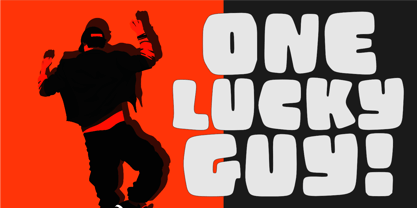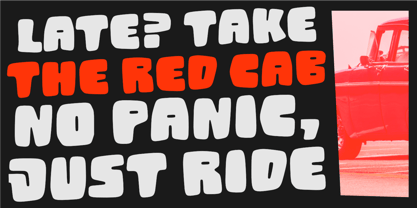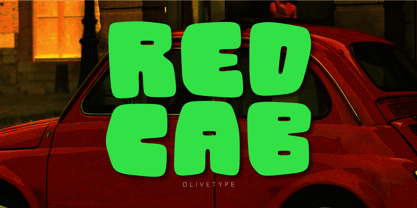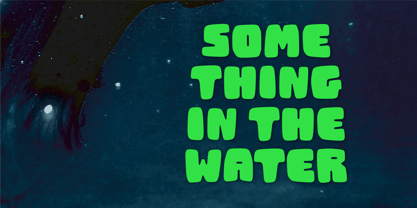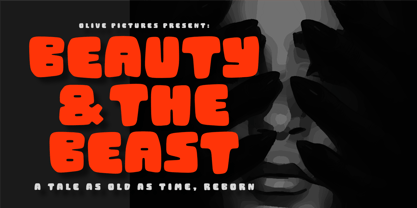
Red Cab
por Olivetype
La familia tipográfica Red Cab fue diseñada por Nurul Hidayani y publicada por Olivetype. Red Cab contiene 1 estilos. Más información sobre esta familia
Red Cab is a super bold display font built to grab attention instantly and deliver fun, confidence, and impact. Inspired by playful urban energy and cartoon-style lettering, Red Cab features thick strokes, rounded shapes, and a friendly attitude that makes every word pop. This font is designed to be loud, cheerful, and unforgettable—perfect for projects that need strong visual presence. Red Cab works beautifully for posters, logos, branding, movie titles, video games, packaging, children’s content, and merchandise. Its bold personality makes it ideal for headlines, title screens, signage, and promotional graphics where clarity and character are essential. Whether you’re creating a fun game interface, an eye-catching film poster, or a vibrant brand identity, Red Cab delivers a powerful and playful voice. With excellent readability at large sizes and a charming, expressive style, Red Cab brings energy, joy, and confidence to any creative project.
Diseñadores: Nurul Hidayani
Fundición: Olivetype